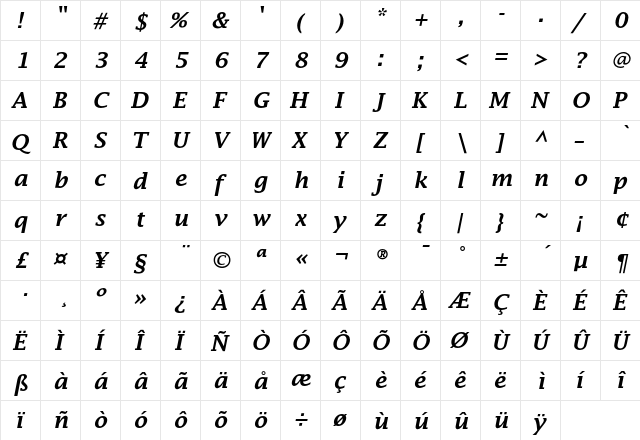
LucidaFaxEF DemiBoldItalic Font Preview
Design Context for LucidaFaxEF Typeface
LucidaFaxEF takes a measured approach to typography — its balanced proportions and neutral character make it a reliable workhorse for both digital and print work. The slanted form adds forward momentum and visual energy. Its bold stroke weight gives it real presence on the page.
Pro Tip: Try LucidaFaxEF for annotation and caption copy alongside an upright companion — the contrast in angle creates a dynamic but ordered typographic system.